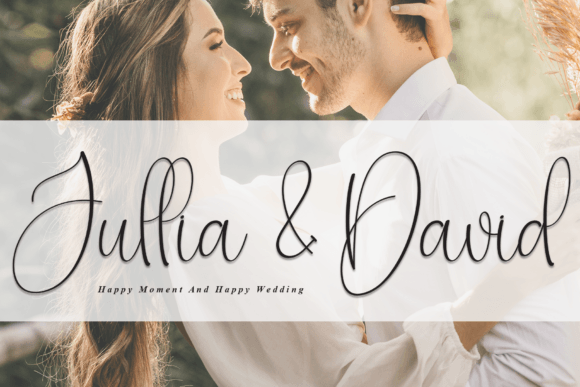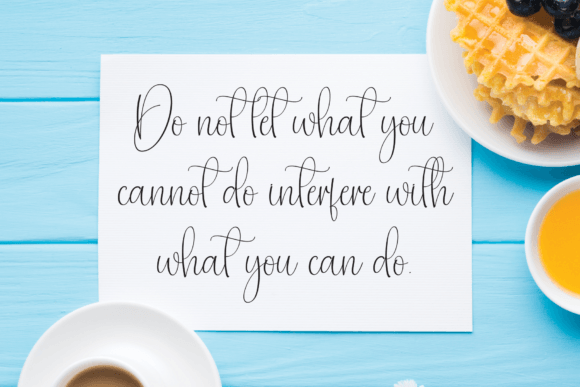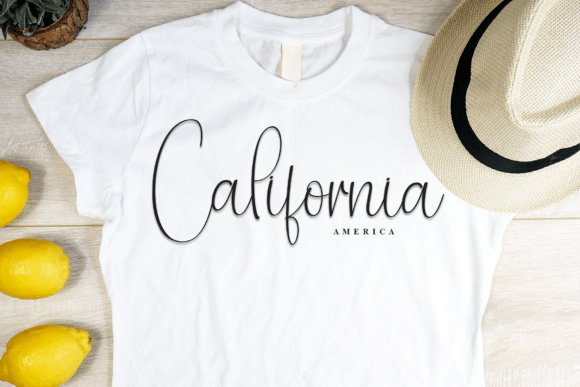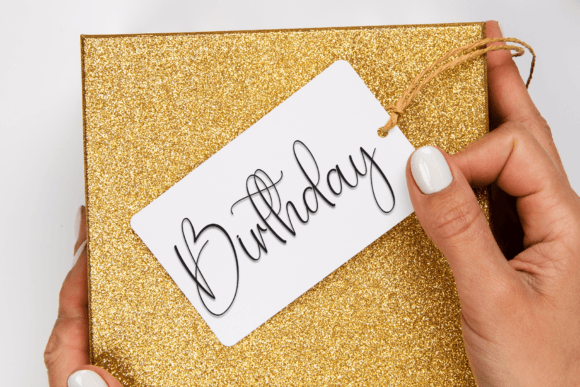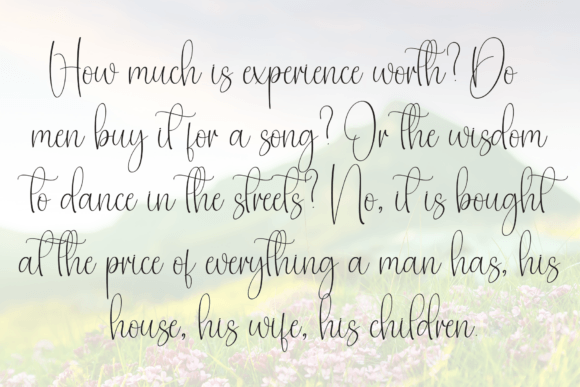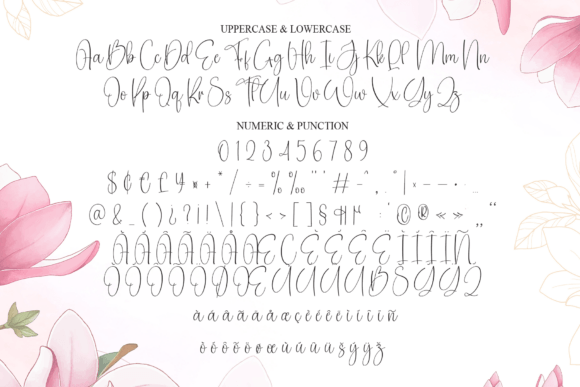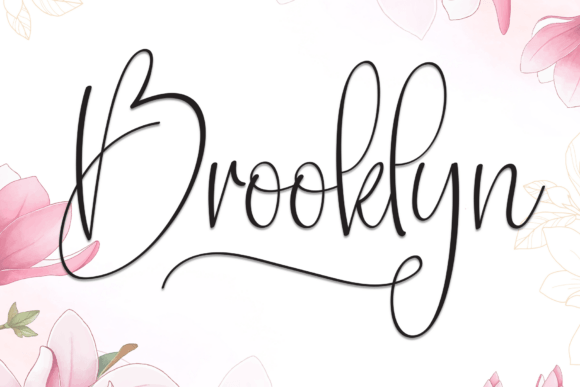
Discover the Elegance of Brooklyn Font: Elevate Your Designs with a Stylish Handwritten Script
In the world of typography, fonts play a crucial role in conveying the tone and personality of a brand, project, or creative endeavor. Among the myriad of typefaces available, the Brooklyn Font stands out for its unique blend of elegance and modernity. This stylish handwritten script font is designed to bring a touch of sophistication and warmth to any design, making it an ideal choice for creatives, designers, and crafters looking to add a personal and refined touch to their work.
The Characteristics of Brooklyn Font
Brooklyn Font is characterized by its flowing strokes and organic curves, which give it a distinctive, handcrafted feel. This typeface seamlessly combines classic elegance with a modern flair, making it versatile enough to be used across various platforms and design projects. Whether you’re working on branding, invitations, social media content, or any other creative endeavor, Brooklyn Font is sure to add a level of sophistication and charm that sets your work apart.
Why Choose Brooklyn Font?
There are several reasons why Brooklyn Font has become a go-to choice for designers and crafters:
- Elegance and Sophistication: Brooklyn Font brings an air of elegance and sophistication to any project, making it perfect for designs that require a touch of refinement.
- Versatility: Its modern flair ensures that it can be used in a variety of contexts, from traditional branding to contemporary social media graphics.
- Personal Touch: The handwritten nature of Brooklyn Font adds a personal touch to designs, making them more relatable and engaging to audiences.
- Effortless Charm: The font’s flowing strokes and organic curves give it an effortless charm that can elevate the aesthetic of any design.
Applications of Brooklyn Font
The versatility of Brooklyn Font makes it suitable for a wide range of applications:
- Branding: Use Brooklyn Font to create a distinctive and memorable brand identity that stands out from the competition.
- Invitations: Add a touch of elegance and sophistication to your invitations, making them perfect for special occasions.
- Social Media: Elevate your social media content with a refined and stylish typeface that captures the attention of your audience.
- Packaging: Use Brooklyn Font on product packaging to give it a personal and premium feel.
Tips for Using Brooklyn Font Effectively
To get the most out of Brooklyn Font, consider the following tips:
- Pair with Complementary Fonts: Combine Brooklyn Font with simpler, sans-serif fonts to create visual contrast and hierarchy in your designs.
- Adjust Letter Spacing: Experiment with letter spacing to enhance readability and ensure that your text flows smoothly.
- Play with Sizes: Use varying font sizes to create emphasis and add depth to your designs.
- Limit Usage: While Brooklyn Font is versatile, it’s best to use it sparingly to maintain its impact and elegance.
Brooklyn Font is a stylish handwritten script font that offers a perfect blend of elegance and modernity. Its unique characteristics make it an ideal choice for designers and crafters looking to add a personal, refined touch to their projects. Whether you’re working on branding, invitations, social media content, or any other design endeavor, Brooklyn Font is sure to bring warmth, sophistication, and effortless charm to your work. Discover the elegance of Brooklyn Font and elevate your designs to new heights.